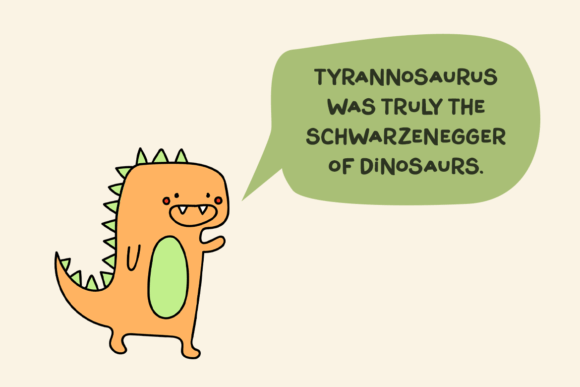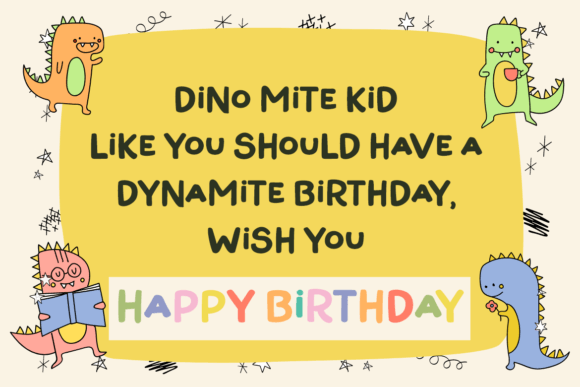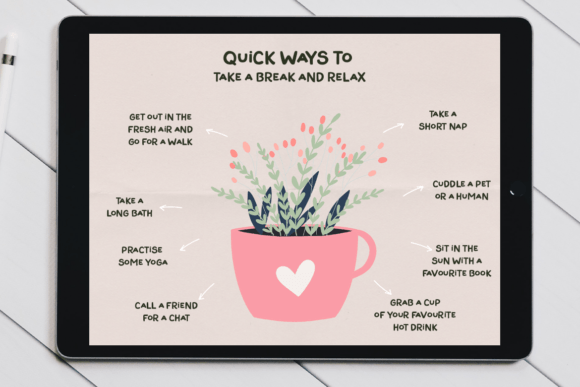
Introduction to Aorta Cracker Font
Aorta Cracker is a versatile, cute, and playful Display font, perfect for a wide spectrum of applications such as greeting cards, headlines, and many more.
Add it to any of your creative projects, and it will give them a clean and fun feel .
Why Choose Aorta Cracker Font?